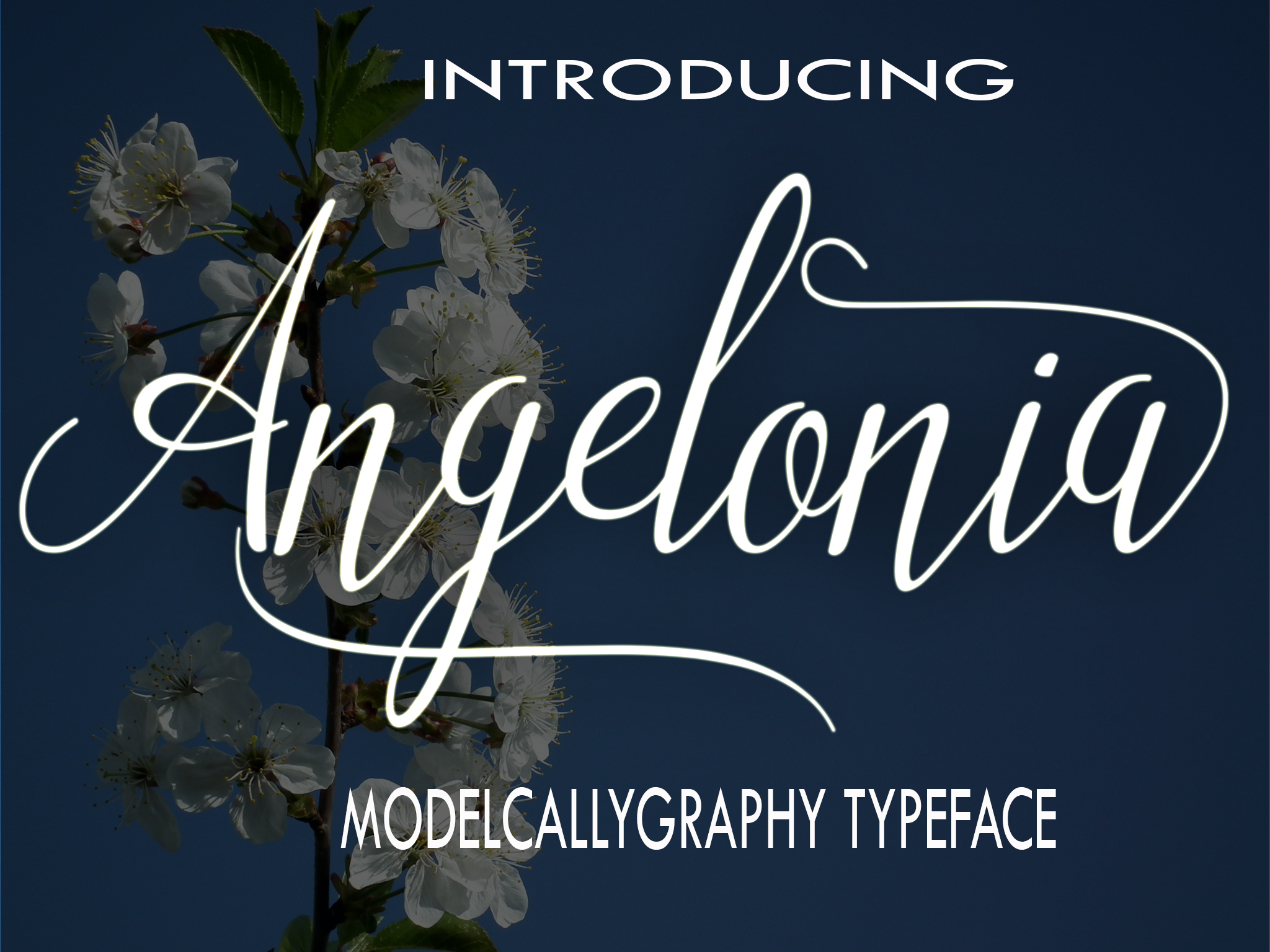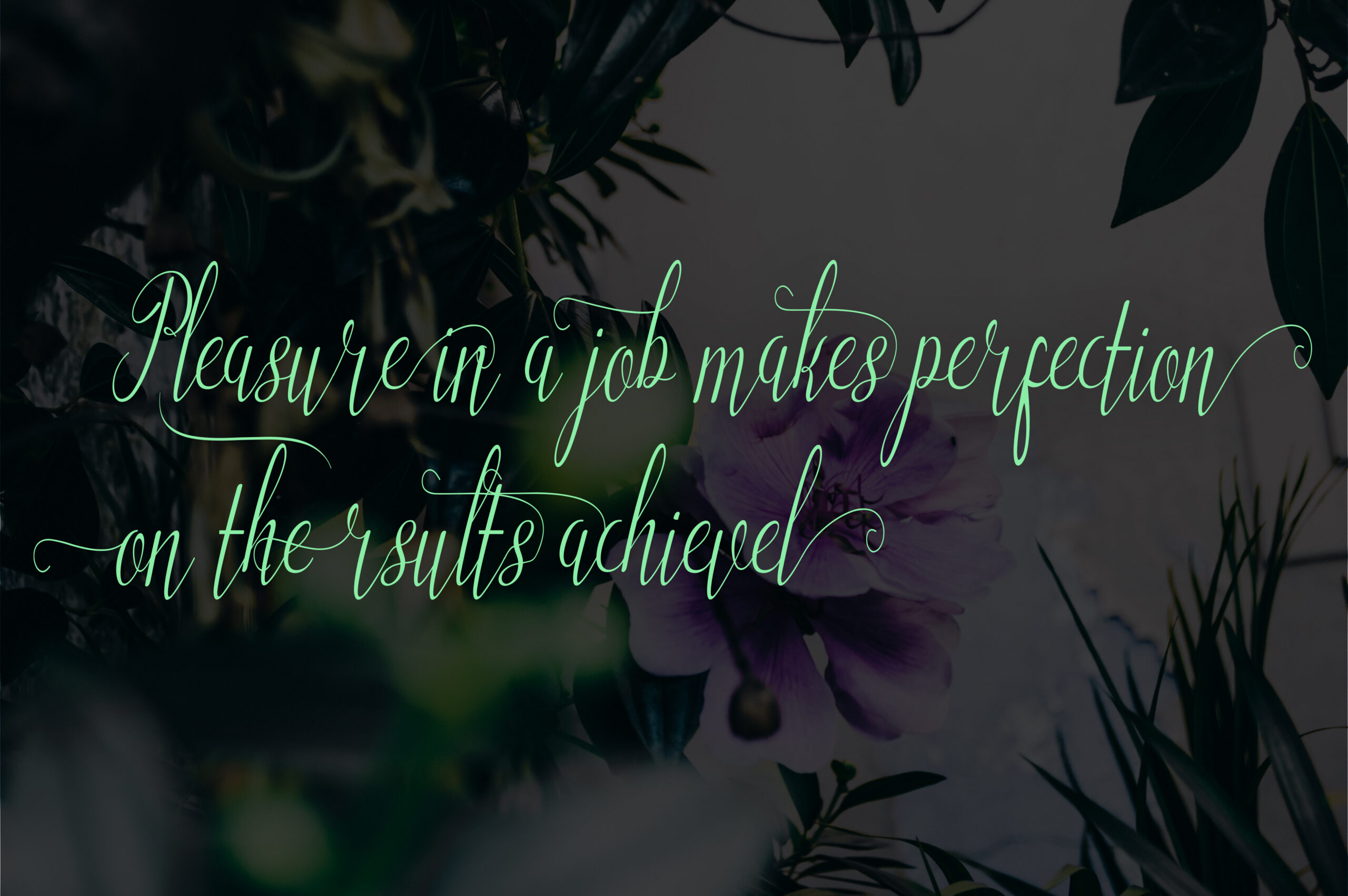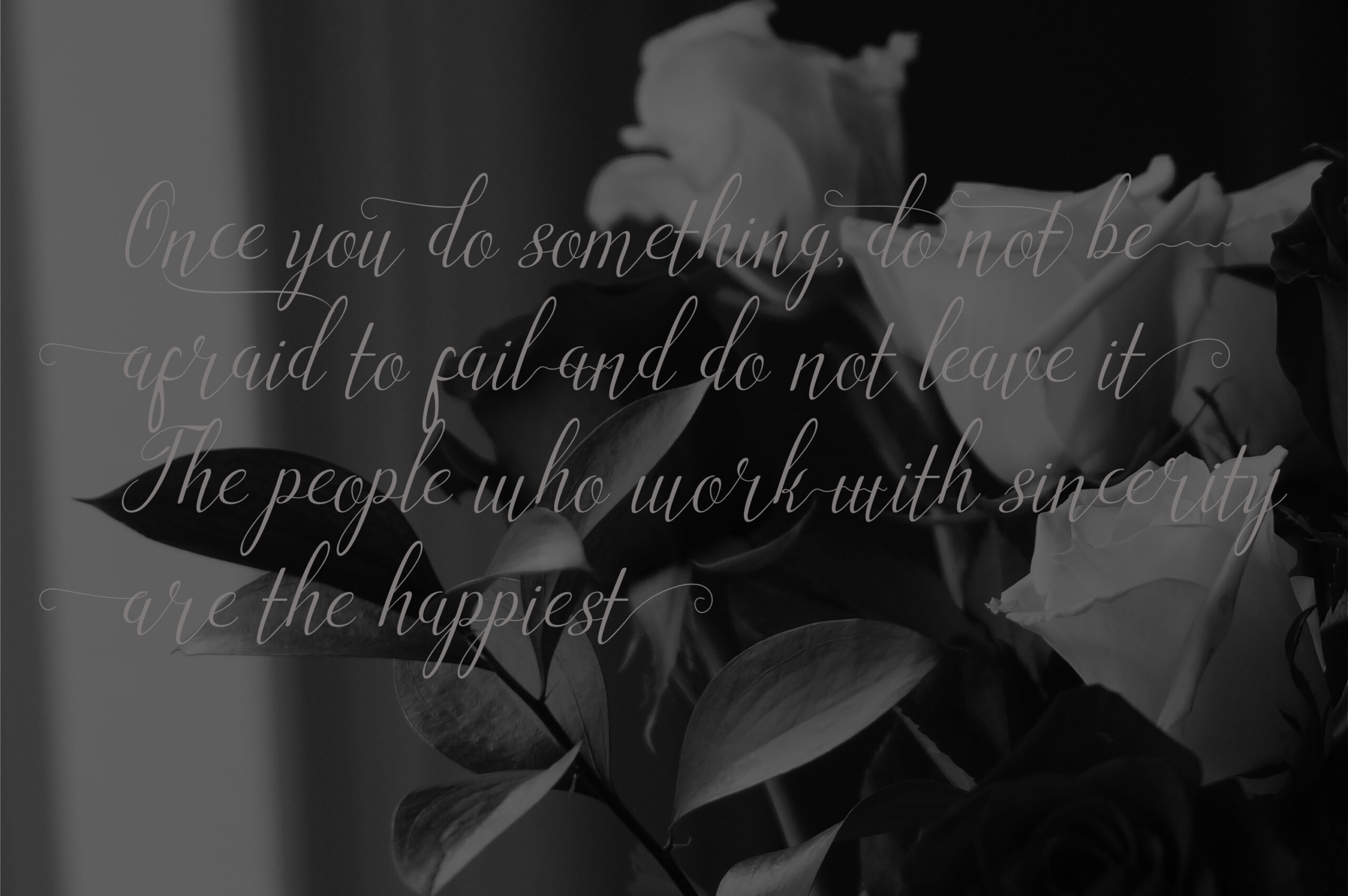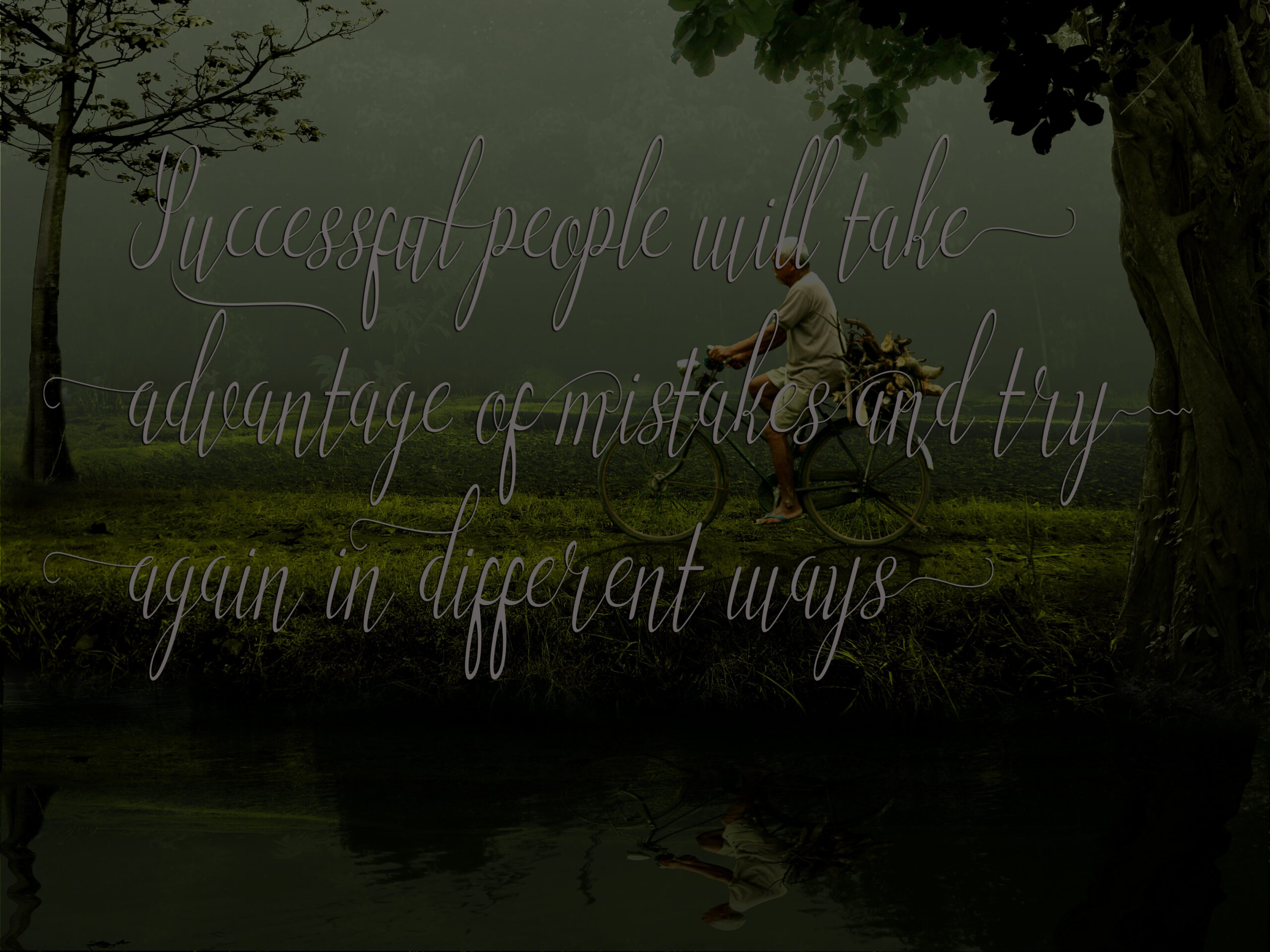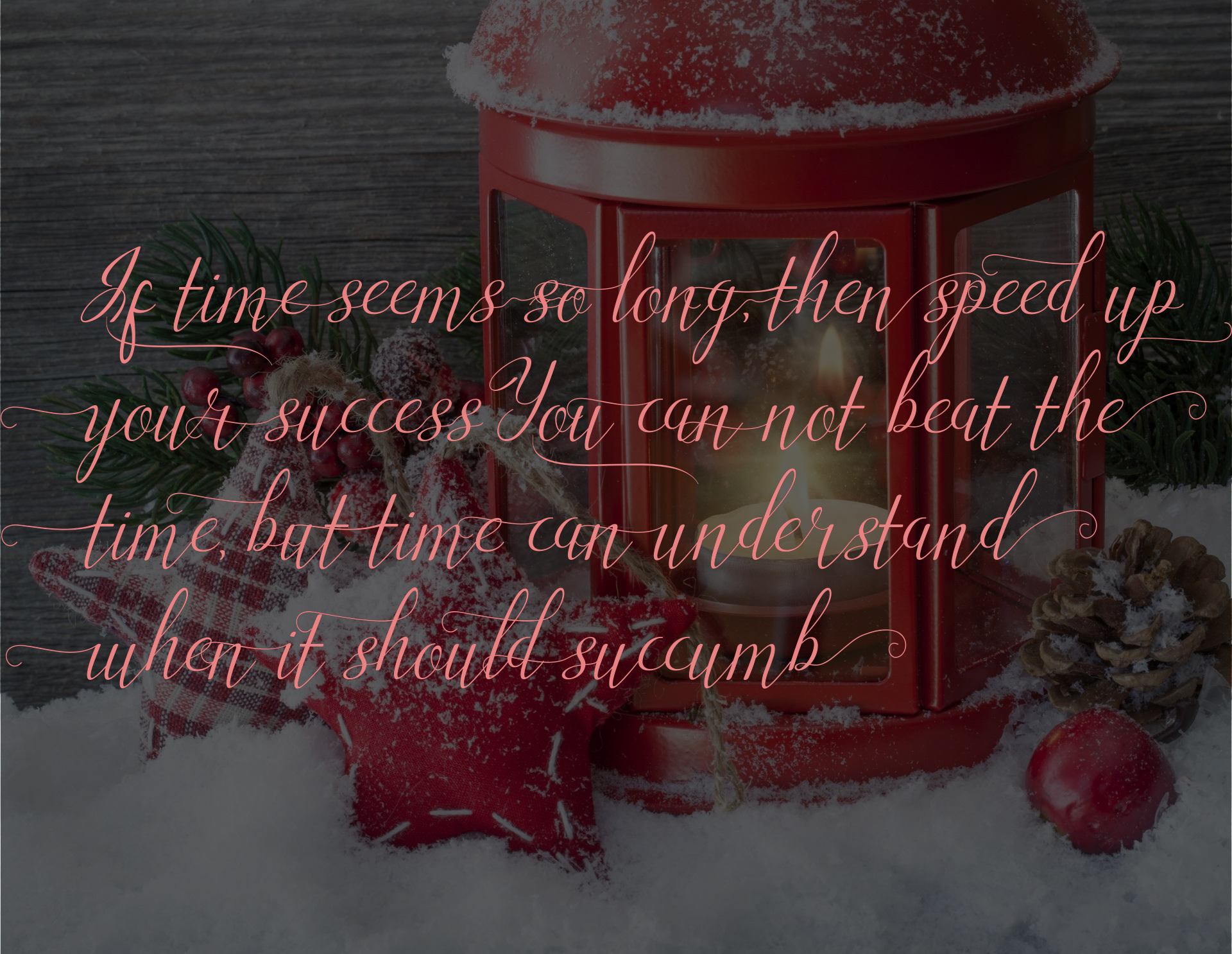
HomeScript FontsAngelonia Font Script Fonts Angelonia Font FacebookXPinterestWhatsApp Angelonia Font Poster 2 Angelonia Font Poster 3 Angelonia Font Poster 4 Angelonia Font Poster 5 Angelonia Font Poster 6 About Angelonia Font Angelonia is a modern calligraphy font created by hand by Imun Studio. DOWNLOAD ON CREATIVE FABRICAThis font is sold and delivered by Creative Fabrica. Font Canyon may earn a commission if you buy through this link. People also explored Calloada Font Banner Font Beastquit Brush Font Wonderful Font Conundrum Font Paisleigh Font Realistic Mock-ups on Vintage Background Bee Benjawan Lf Font Christmas and Friends Font 265 0 TagsAngelonia Font Previous articleShintia FontNext articleSqualia Font LEAVE A REPLY Cancel reply Comment: Please enter your comment! Name:* Please enter your name here Email:* You have entered an incorrect email address! Please enter your email address here Website: Save my name, email, and website in this browser for the next time I comment. Personal Use Free Hubbies Personal Use Free Read more about this font Anti Personal Use Free Read more about this font Samureix Personal Use Free Read more about this font Hatia Script Personal Use Free Read more about this font BLOG Free vs Paid Fonts: Why Investing in Premium Fonts Is Worth It Free vs Paid Fonts: Why Premium Fonts Are Worth It in 2025 The debate of free vs paid fonts continues in the design world. While... Where to Buy American Fonts Online in 2024 Elegant Wedding Invitation Fonts – Handwritten & Script Fonts 5 Fonts That Will Dominate Design Trends in 2026